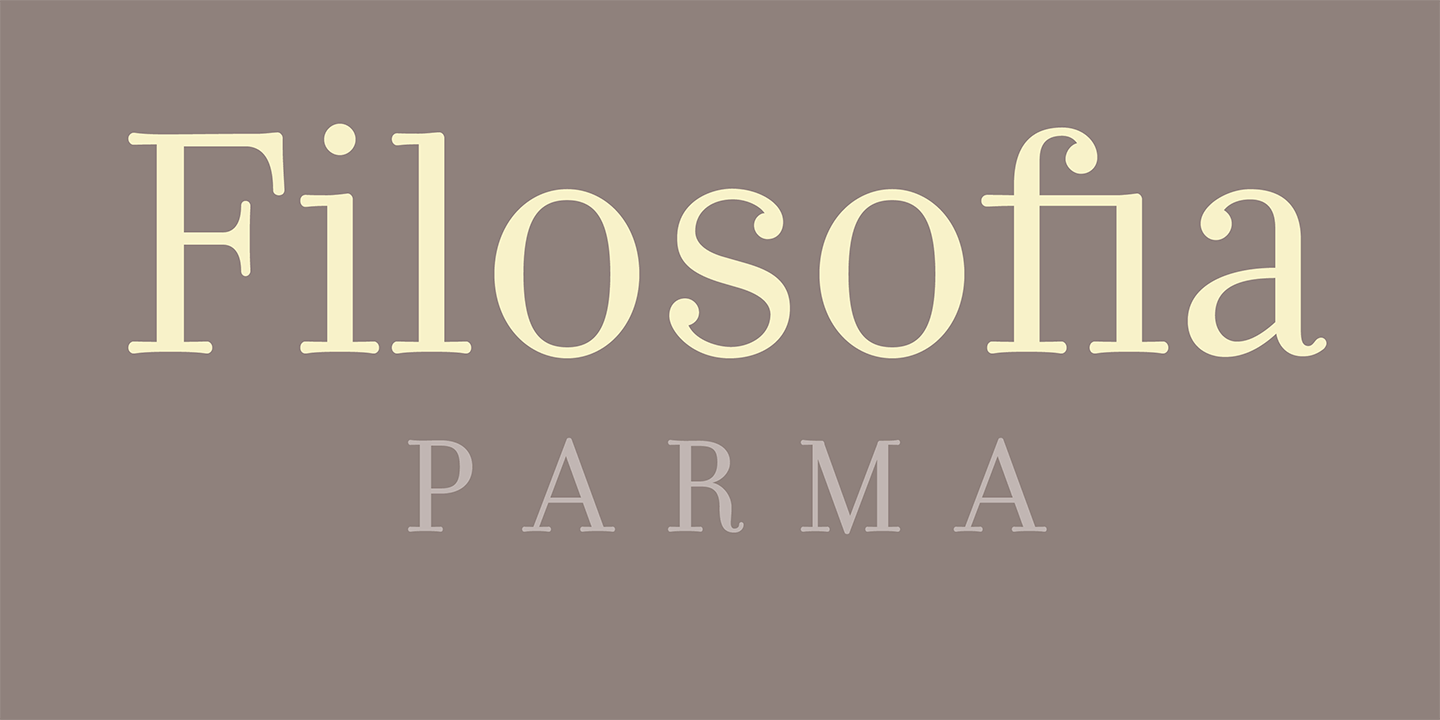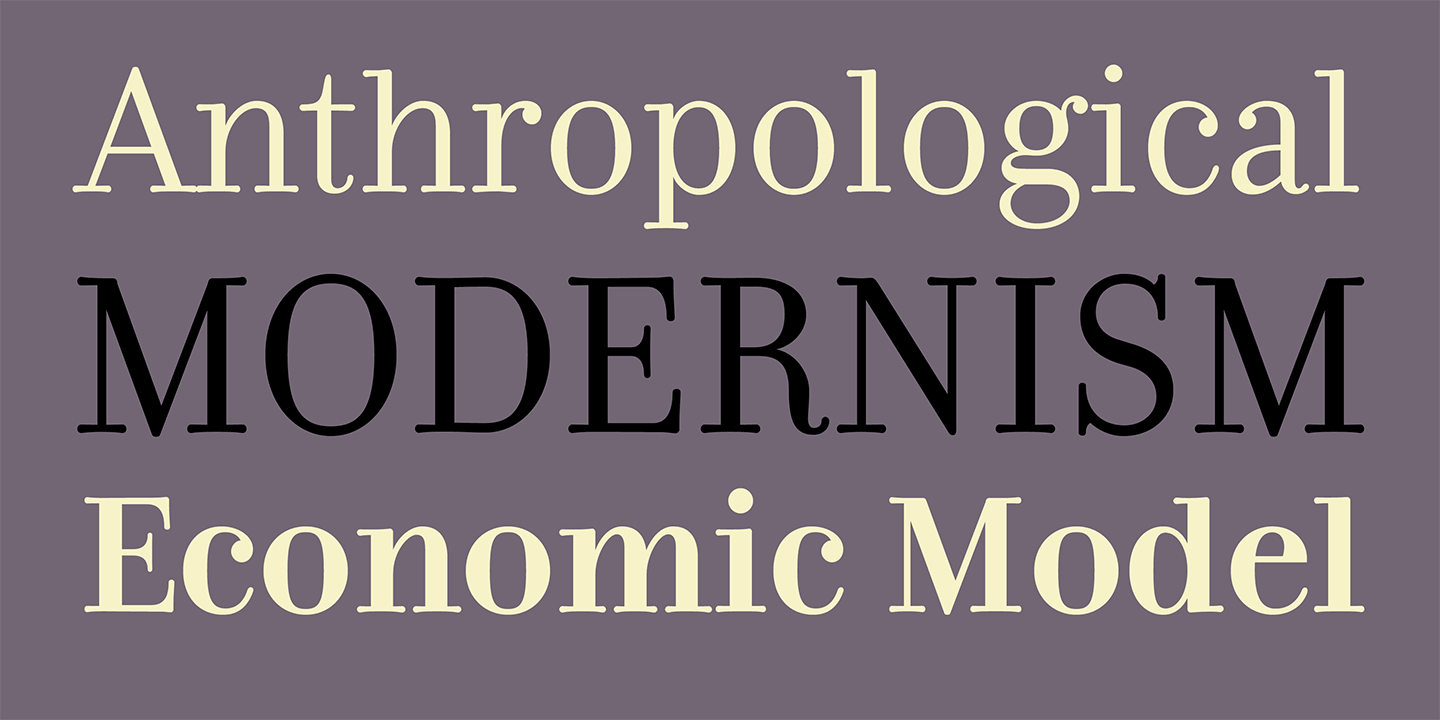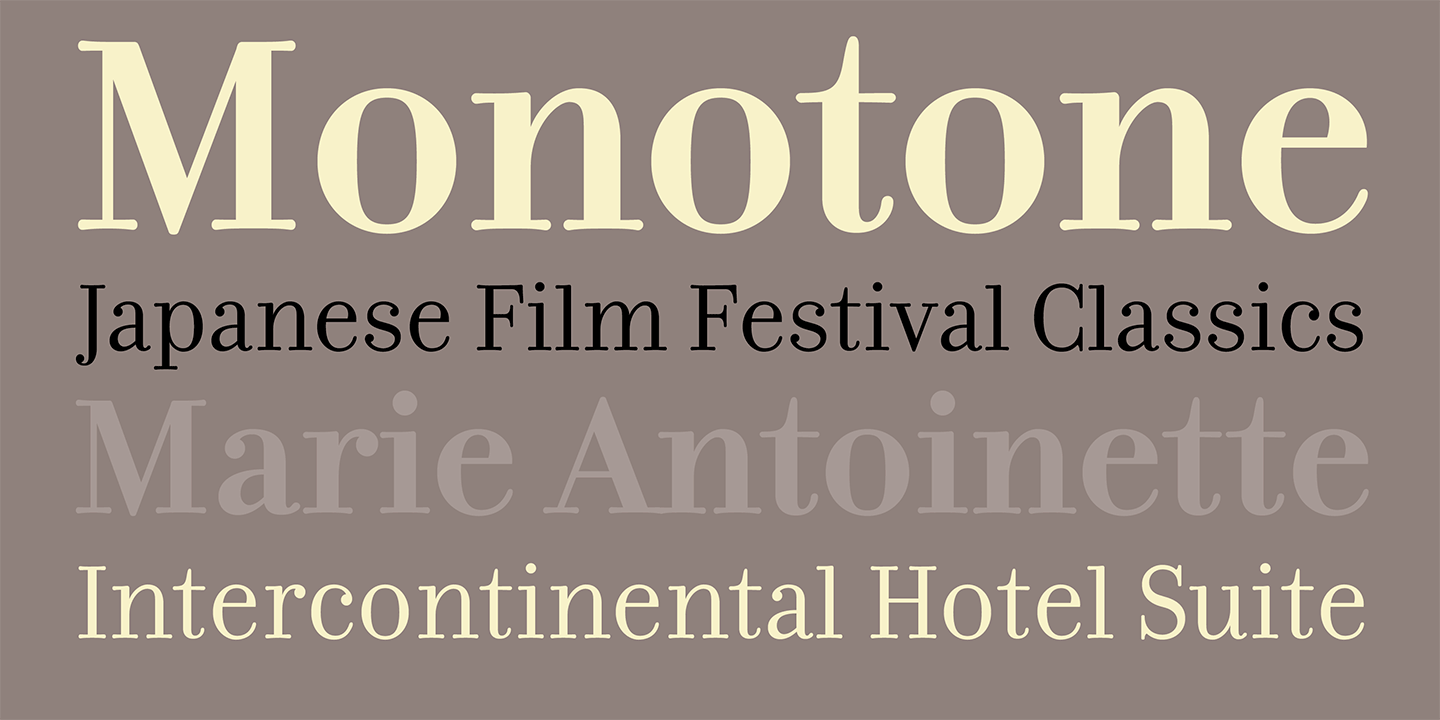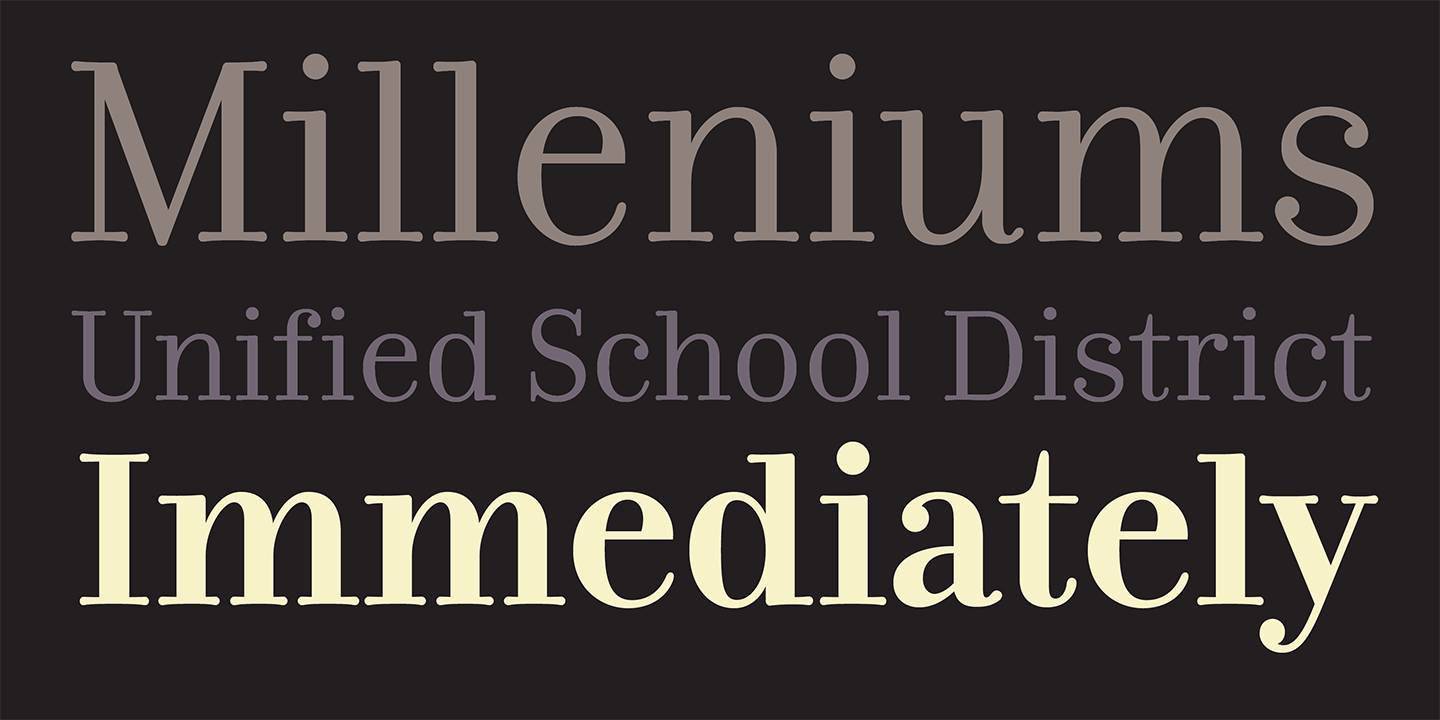
Filosofia Parma
Filosofia Parma is a Filosofia spin-off, created in 2019 as part of the branding program for the city of Parma, Italy. Edenspiekermann, the agency in charge of the branding, performed the transformation by increasing Filosofia’s x-height. The small caps were dropped due to the large x-height. The Filosofia Parma family is available in two roman styles of regular and bold weight, and can be used comfortably in combination with all other Filosofia fonts.